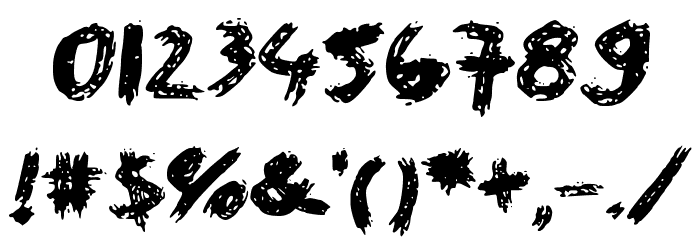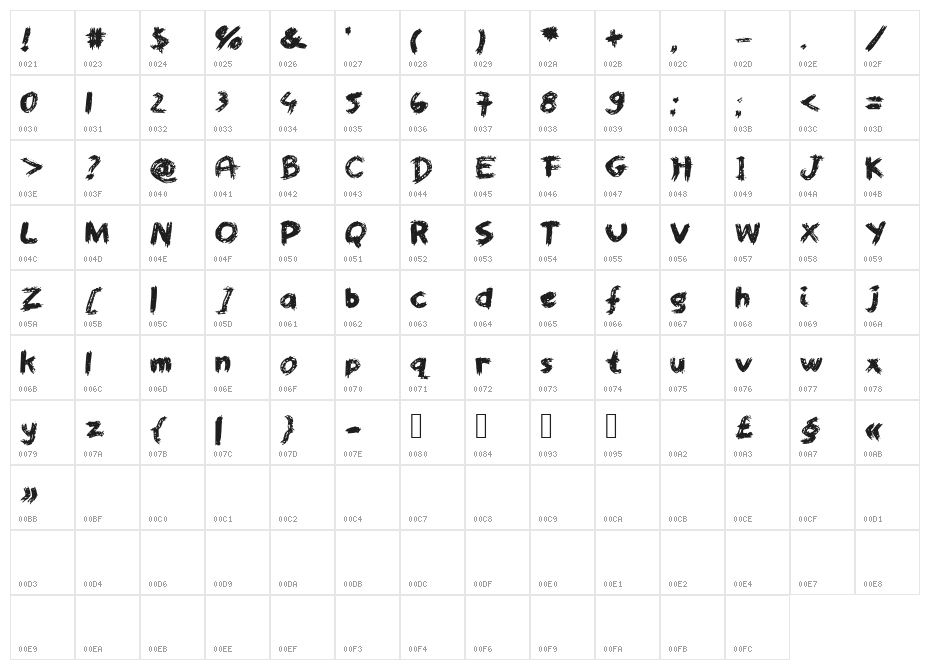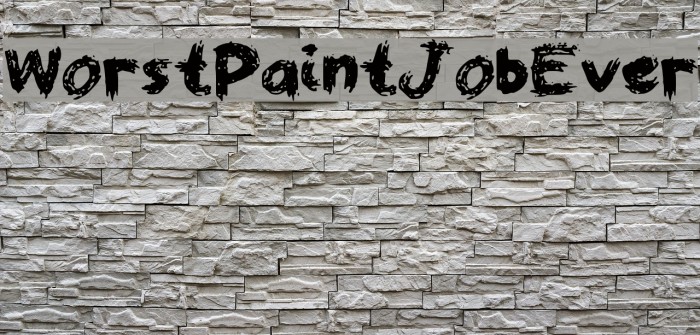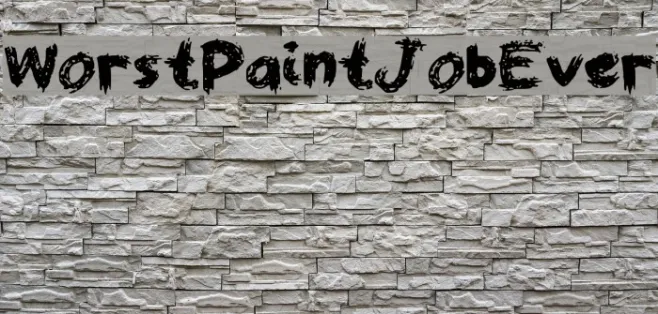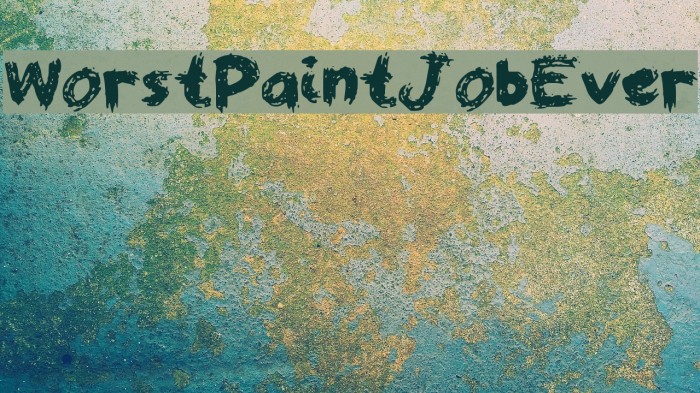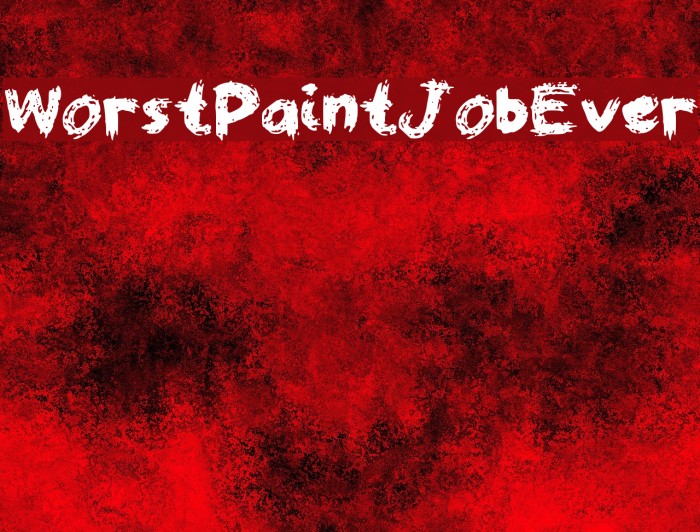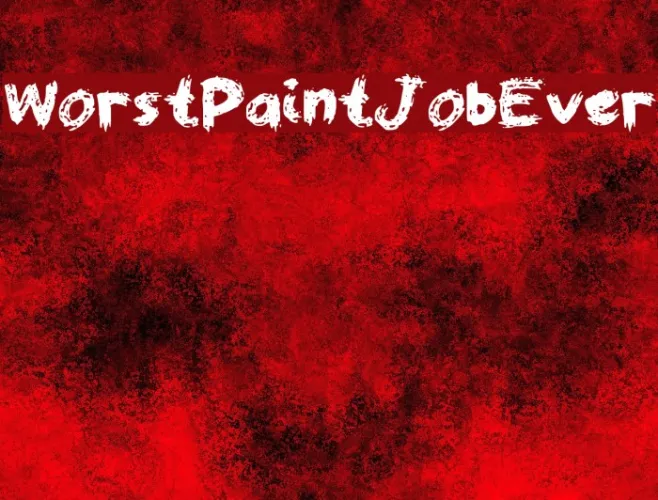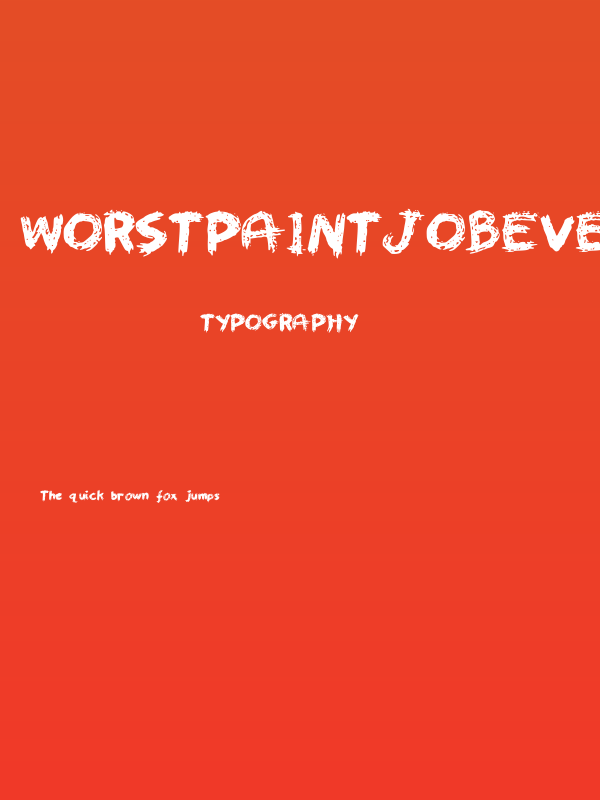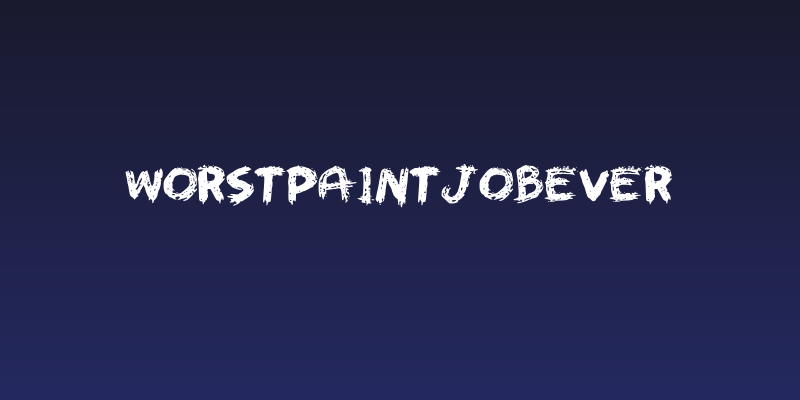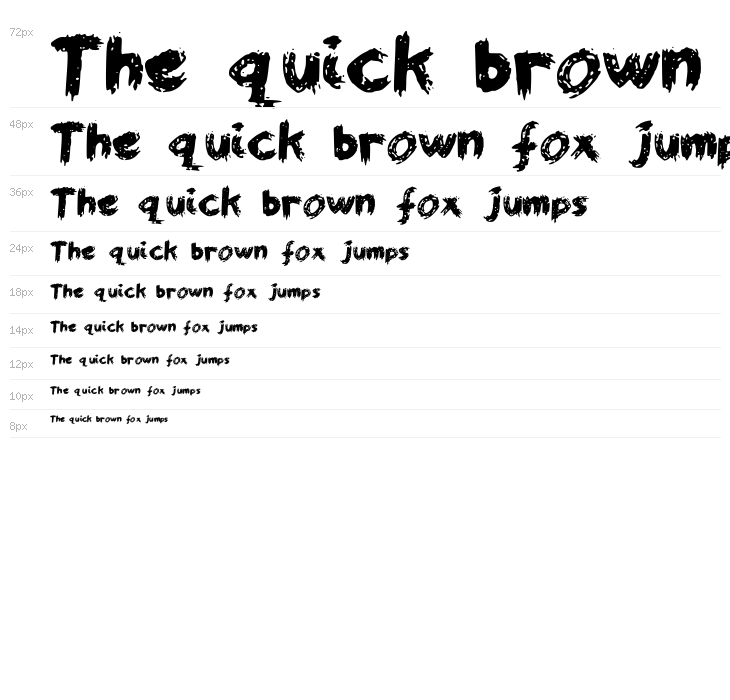
WorstPaintJobEver Font
WorstPaintJobEver Description
This font features a highly distressed and grungy appearance, reminiscent of paint splatters or rough brush strokes. The characters are bold and irregular, with jagged edges and a chaotic style that conveys a sense of raw energy and movement. Each letter and number appears unique, adding to the overall dynamic and unpredictable feel. The font's rugged texture makes it ideal for designs that require a rebellious or edgy aesthetic. Despite its roughness, the characters remain legible, making it suitable for impactful headlines or artistic projects.
| Overall Style | Grunge, Edgy |
| Use Case | Headlines, Logos, Artistic projects |
| Proposed Projects | Ideal for album covers, streetwear branding, skateboarding graphics, or any project needing an edgy, rebellious look. |